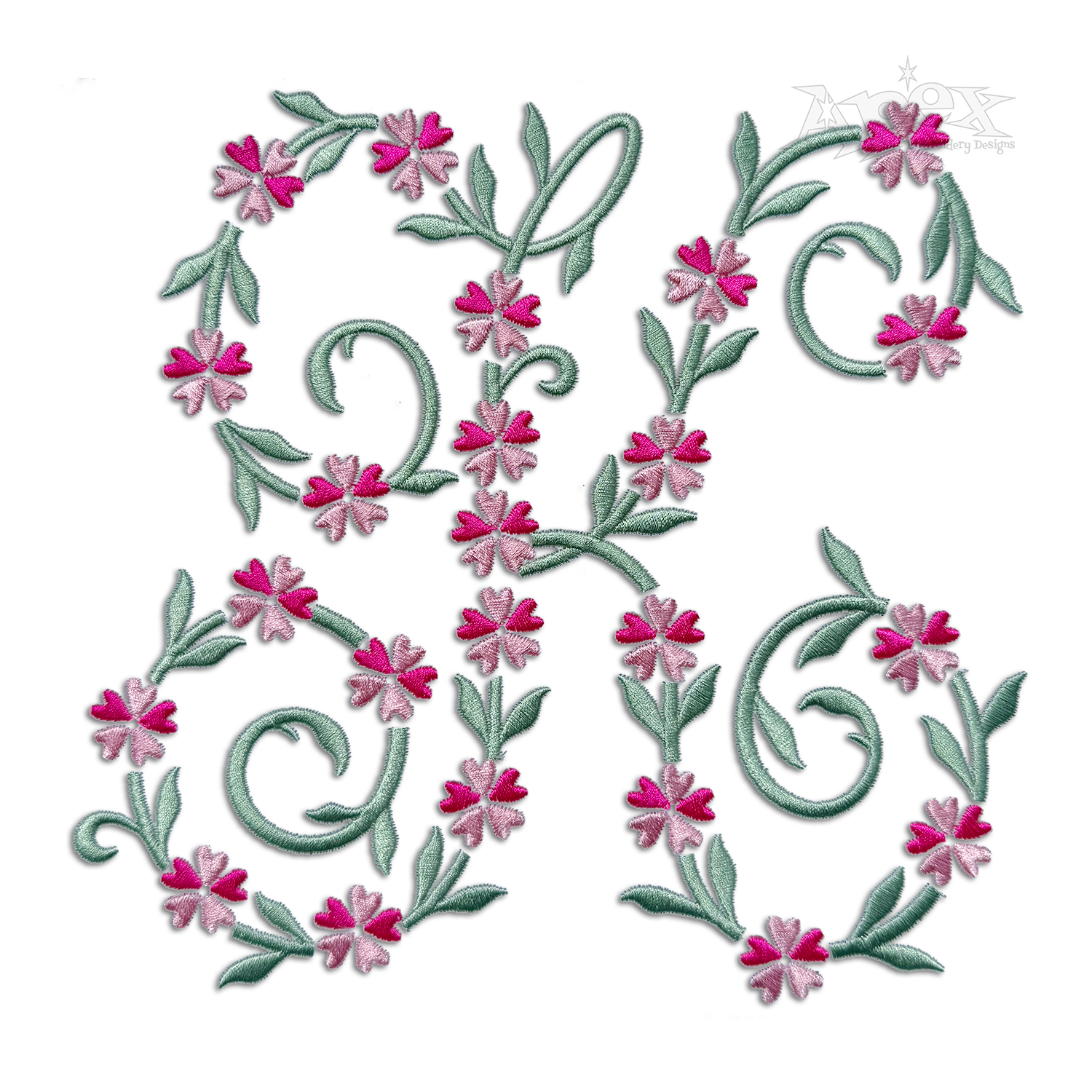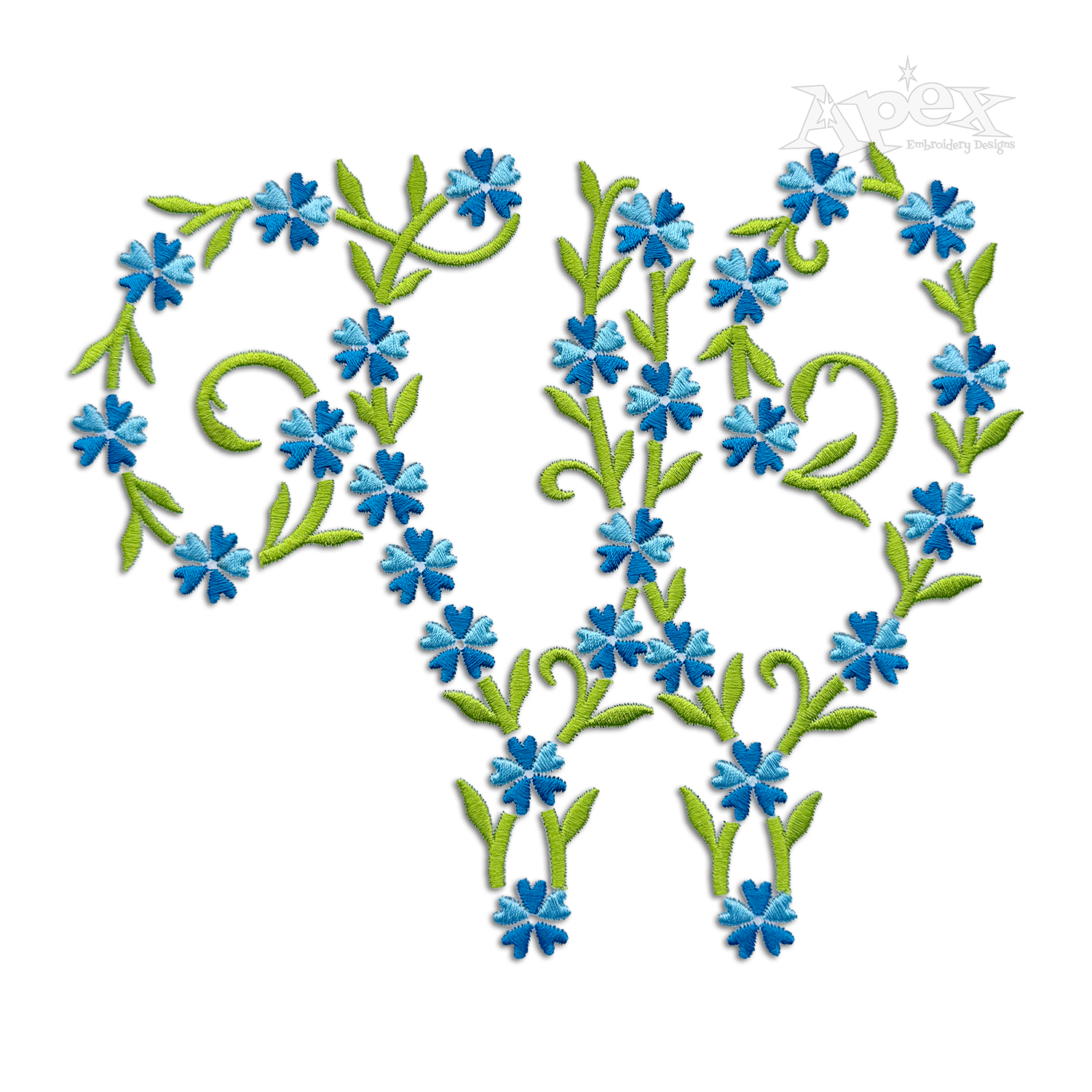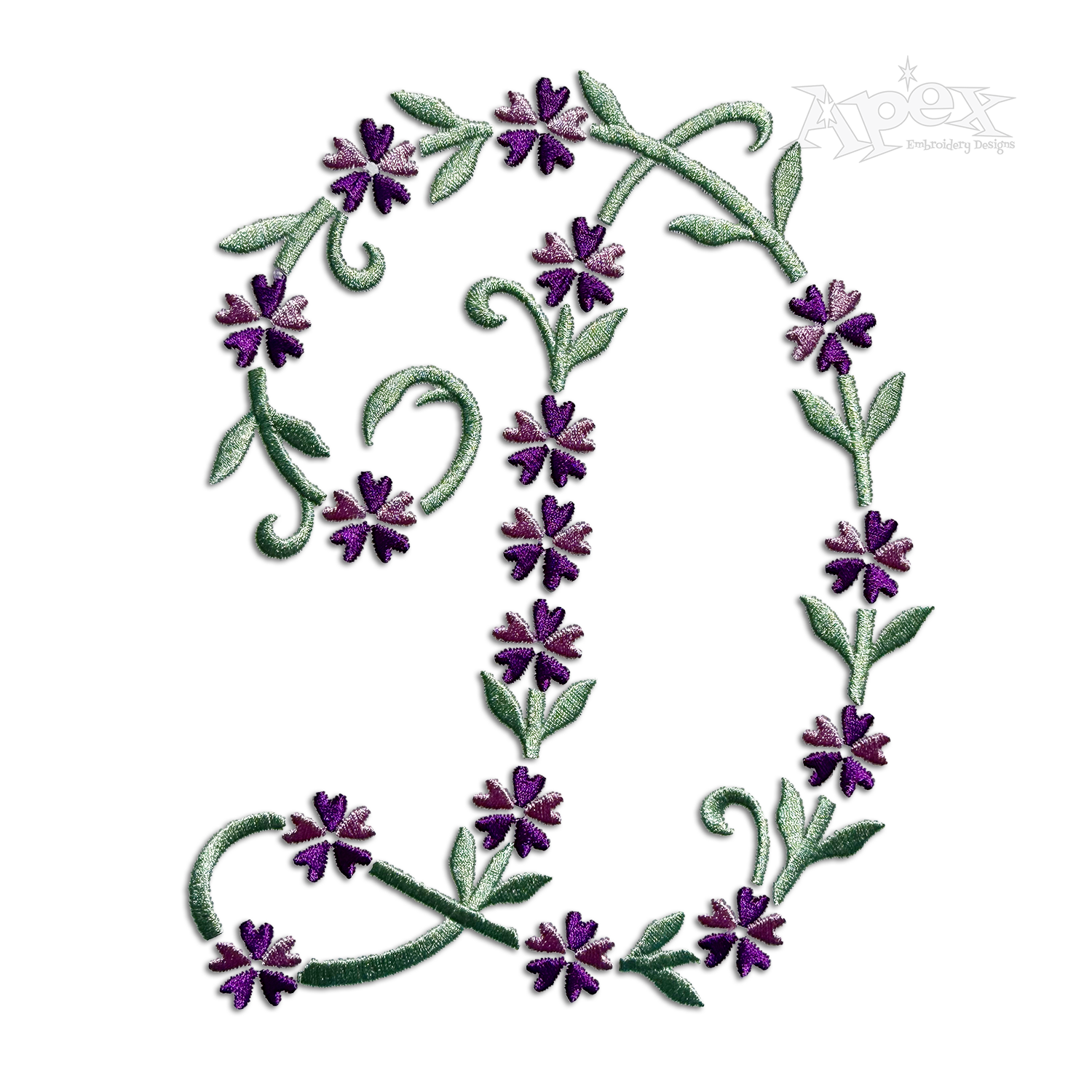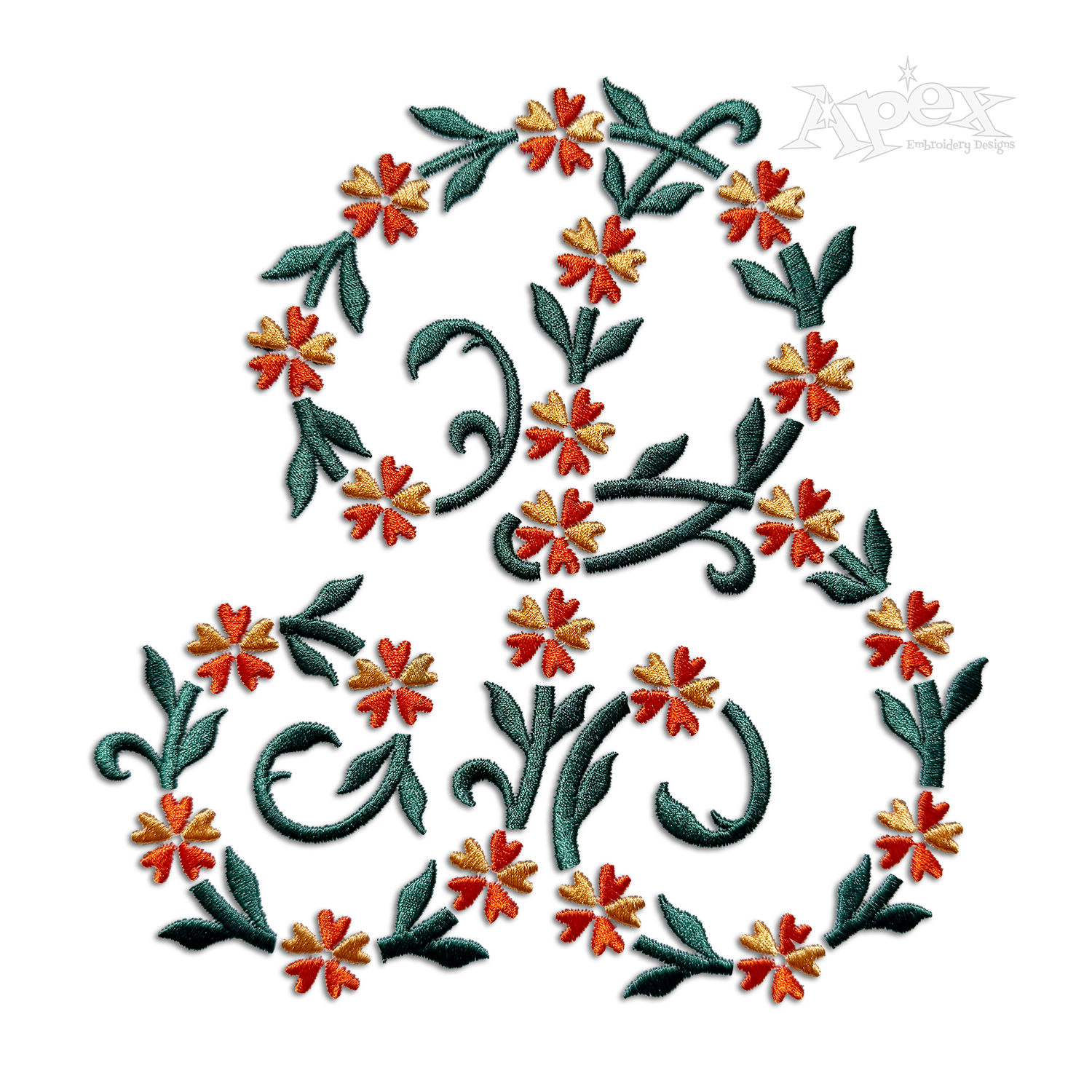
Forget-Me-Not Flowers Machine Embroidery Font
Add a fresh and beautiful floral touch to your embroidery projects with the Dolly Forget-Me-Not Flowers Machine Embroidery Font. This decorative machine embroidery font combines elegant three-color lettering with tiny floral, heart-shaped petal patterns to create charming personalized embroidery.
The Forget-Me-Not Flowers embroidery font is perfect for adding names, monograms, and personalized lettering to a wide variety of projects. Create beautiful spring gifts, summer clothing, fall accessories, winter home décor, pillows, quilts, towels, and special occasion projects.
- Forget-Me-Not Flowers Monogram Font